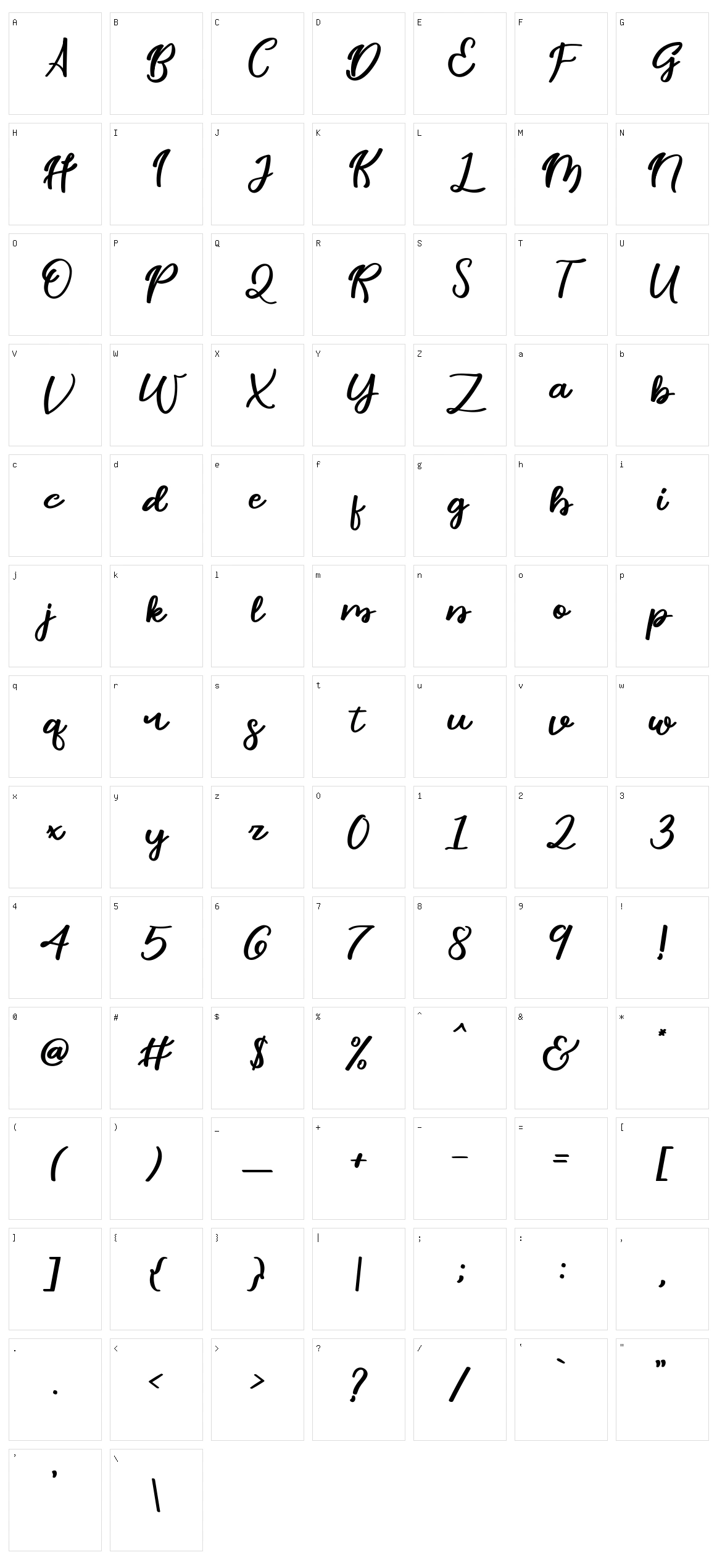
The free font Done Perfectly is carefully designed by Abas Creative, showcasing a thoughtful balance of creativity and usability and falls under the Script font style. When you download the ZIP file, it contains only 33.36 KB of font files, making it lightweight and quick to download. Please review the license details below to understand permitted usage and distribution rights. If license information is not available, we recommend using this font for personal projects only or contacting the author directly for commercial usage permissions.